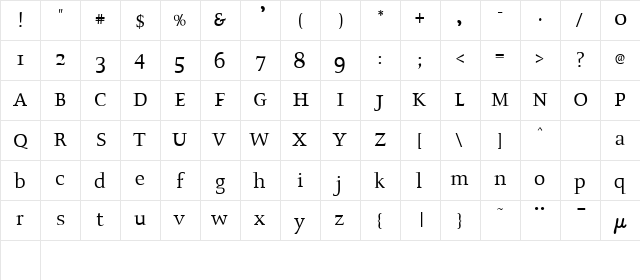
Porson Regular
Design Context for Porson Typeface
Porson is a composed and adaptable typeface that performs quietly and consistently across a wide range of design contexts.